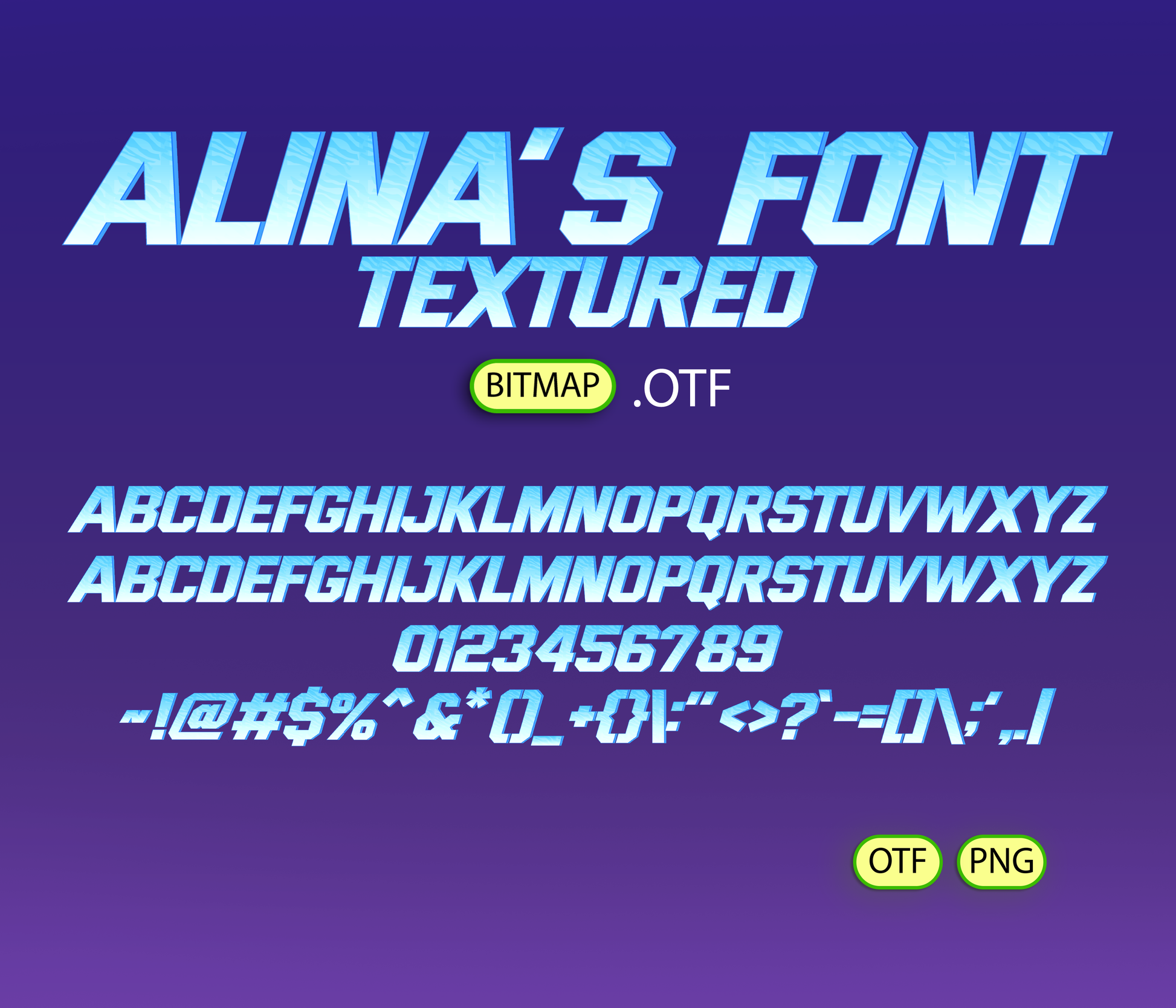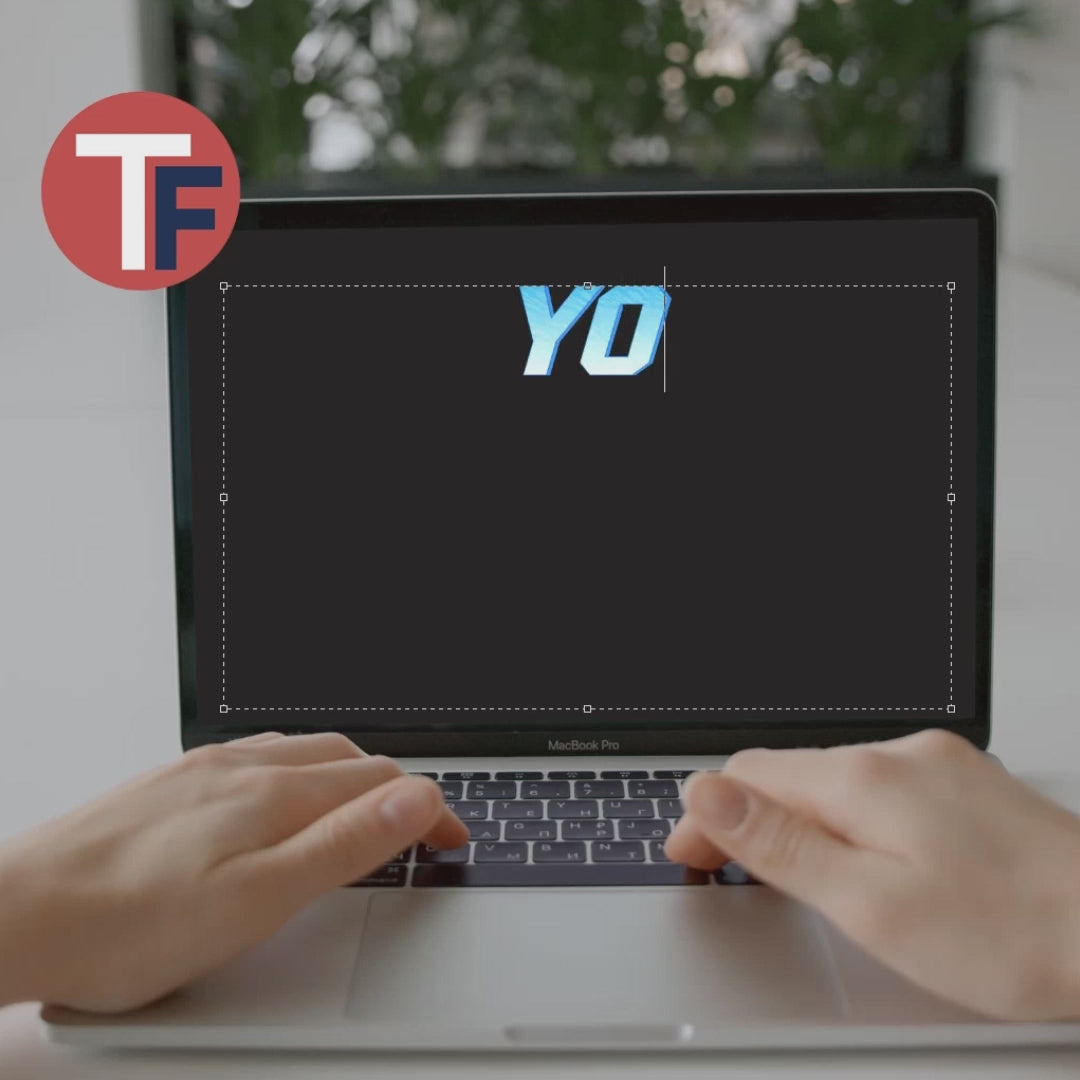
Multiverse Heroes Font Textured
Multiverse Heroes Font
Enter the adventure with our Multiverse Heroes font, inspired by Brotherhood of Justice. Perfect for fans and designers, this font captures the dramatic essence of this iconic storyline. Create event invitations, themed merchandise, or digital content with the excitement of this crossover.
Design and Uses
Bold lines and dynamic characters reflect the multiverse conflict. Ideal for:
Integration and Features
Includes textured and non-textured variants. Compatible with all software, including Canva. This font honors the crossover event, empowering your projects. Whether for promotions, merchandise, or personal projects, this font communicates the Justice League's strength. Elevate your designs to heroic heights.